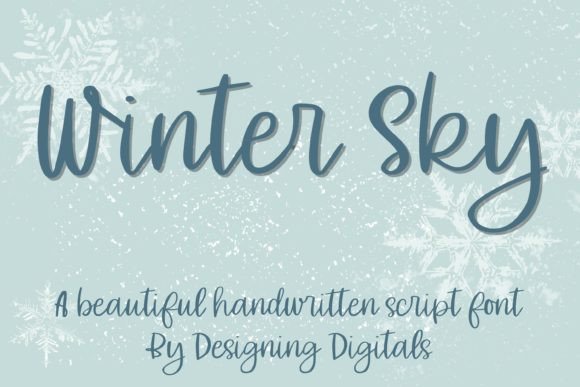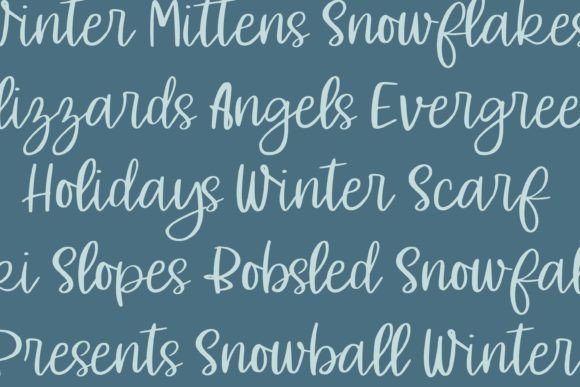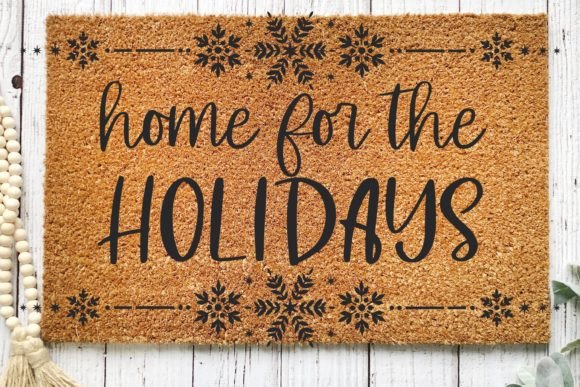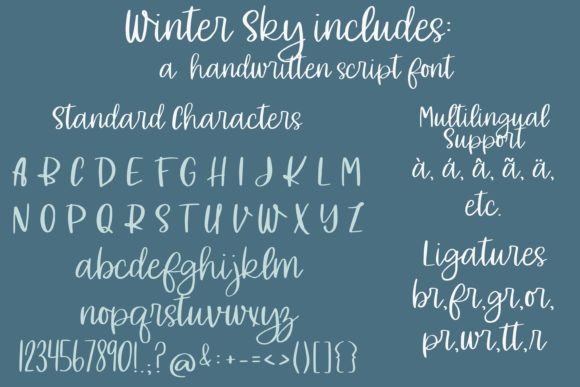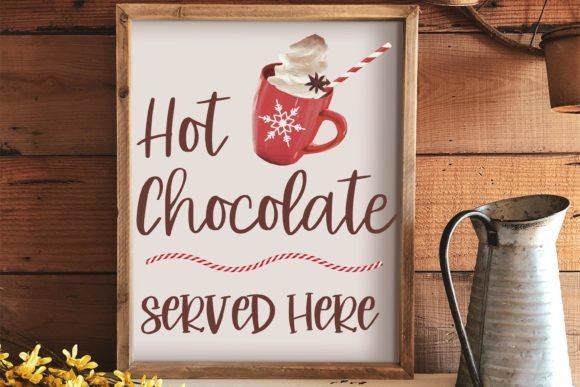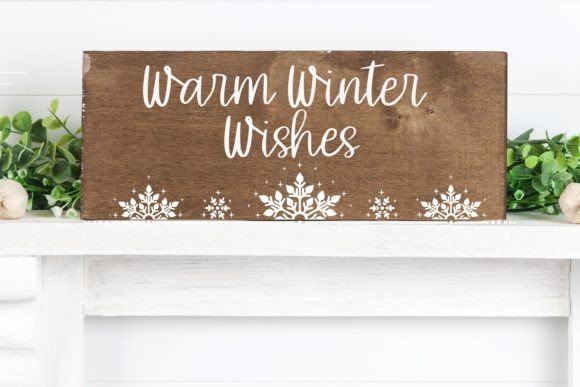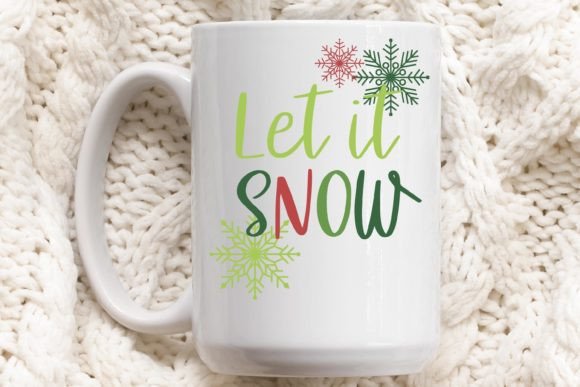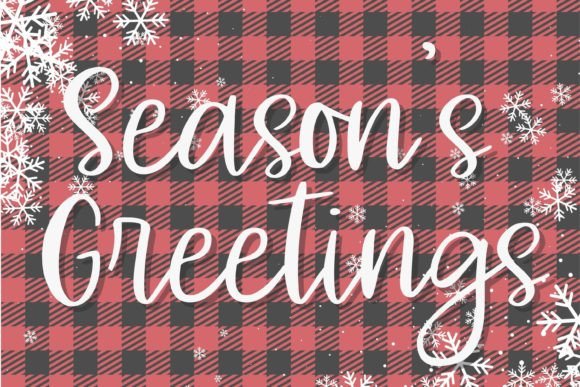
Winter Sky Font
About Winter Sky Font
**Winter Sky**: *Where Sweetness Meets Festive Charm*
Winter Sky isn’t just a font; it’s a delightful blend of sweetness and festive charm meticulously designed to bring a sweet, cozy vibe to all your holiday and festive projects. With its friendly characters and warm appearance, this handwritten font effortlessly adds a sense of warmth and celebration to your designs, making it the perfect choice for all your holiday and festive creative endeavors.
What sets Winter Sky apart is its remarkable ability to seamlessly combine sweetness with festive charm. The font’s carefully crafted characters exude an air of joy and authenticity, making it an ideal choice for projects that require a touch of warmth and a festive aesthetic. Winter Sky is the font that can effortlessly enhance your holiday cards, decorations, social media posts, and any other project, ensuring they stand out with a delightful sense of style and charm.
Winter Sky strikes the perfect balance between a warm aesthetic and a friendly demeanor, making it a versatile and heartwarming choice for projects that aim to capture the spirit of the holidays and celebrations.
In holiday cards and festive decorations, Winter Sky adds a unique sense of character and joy, making them even more memorable and heartwarming. For creative projects that require a cozy and inviting look, the font’s sweet appeal enhances the visual impact of your content, making it more captivating and memorable. Whether you’re working on invitations, banners, or any other festive visual content, Winter Sky brings an air of delightful sweetness and festive charm to your projects.
One of Winter Sky’s most remarkable qualities is its adaptability. It can transition seamlessly from a casual and relaxed tone to a more festive and spirited one, making it suitable for a wide range of holiday and celebratory applications. Its ability to evoke both sweetness and festive charm ensures that it remains a cherished choice for designers and creators during the holiday season and beyond.
In summary, Winter Sky is more than just a font; it’s a design asset that masterfully combines sweetness with festive charm. Its unique blend of friendly characters and celebratory allure positions it as an indispensable tool for anyone seeking to infuse their holiday and festive projects with a touch of style and charm. Embrace the sweetness and festive charm of Winter Sky, and watch your designs come to life with warmth and artistic flair, making it the perfect choice for all your festive and holiday creative endeavors!